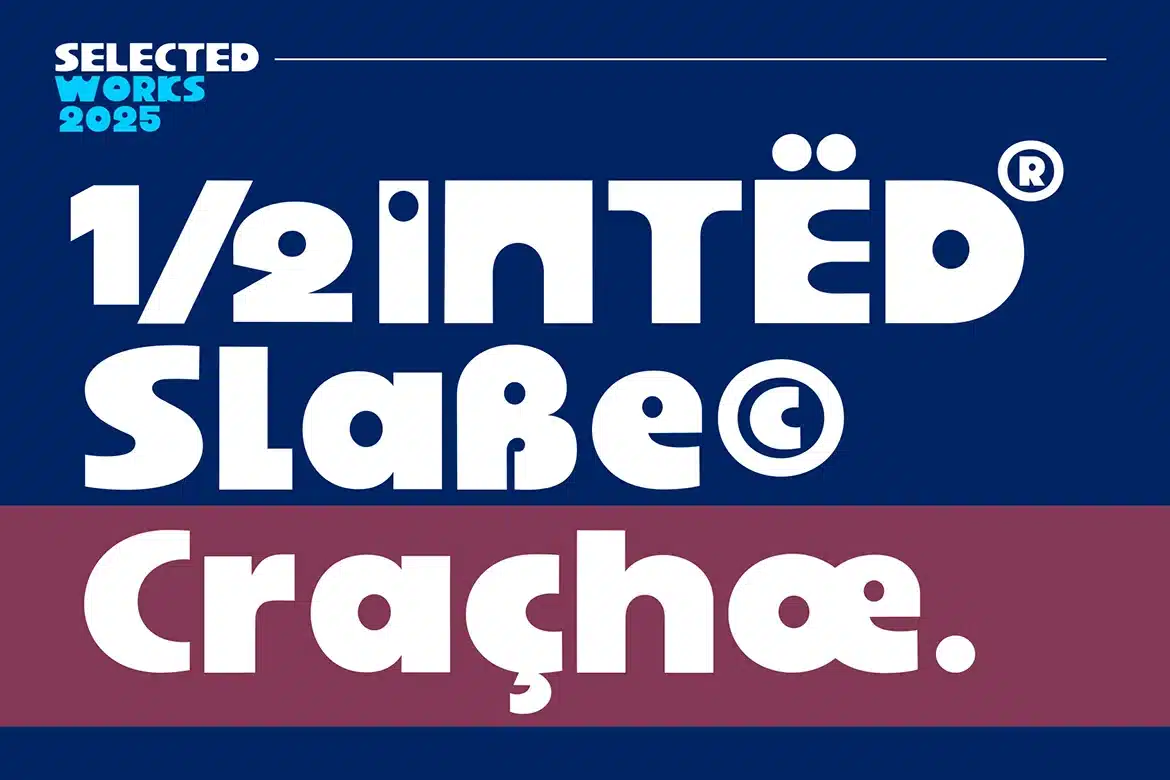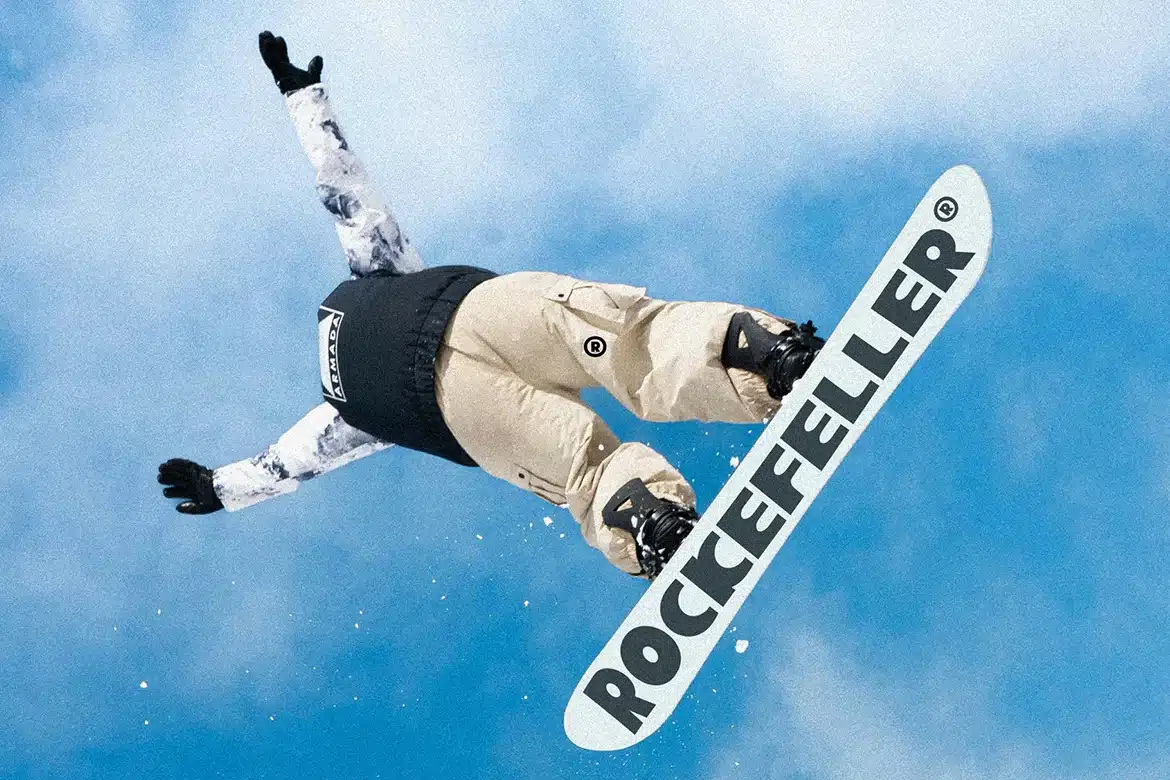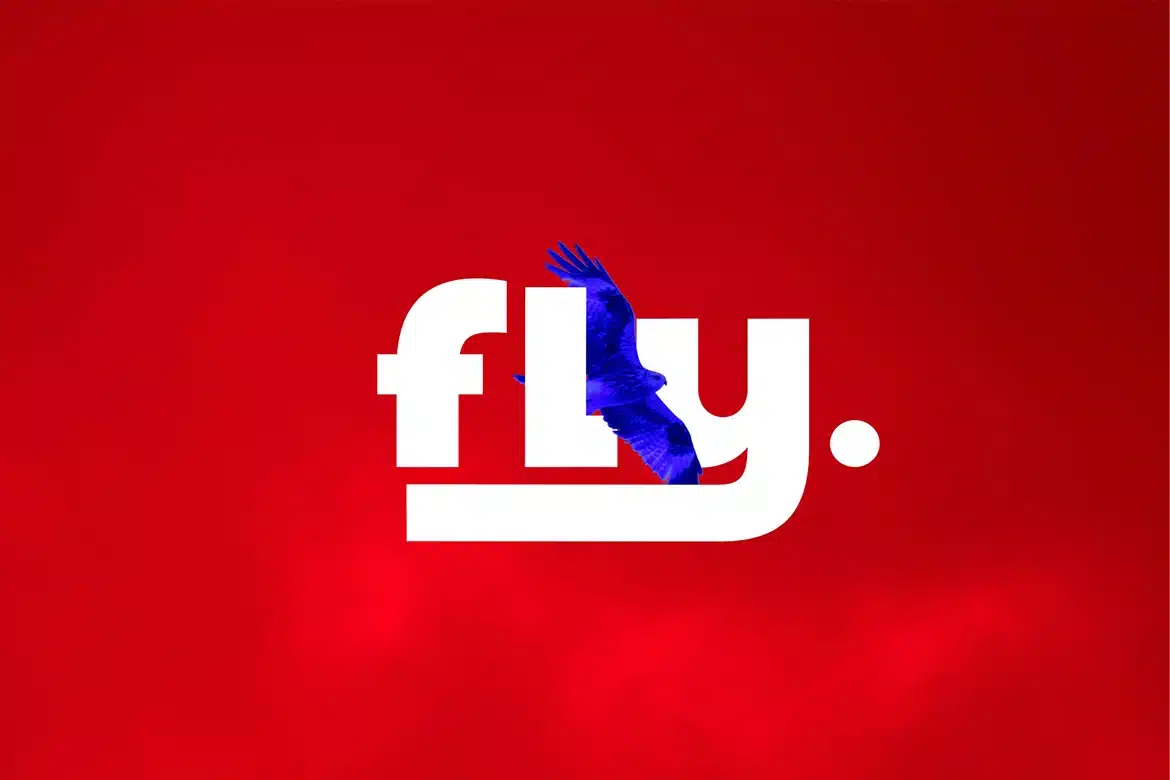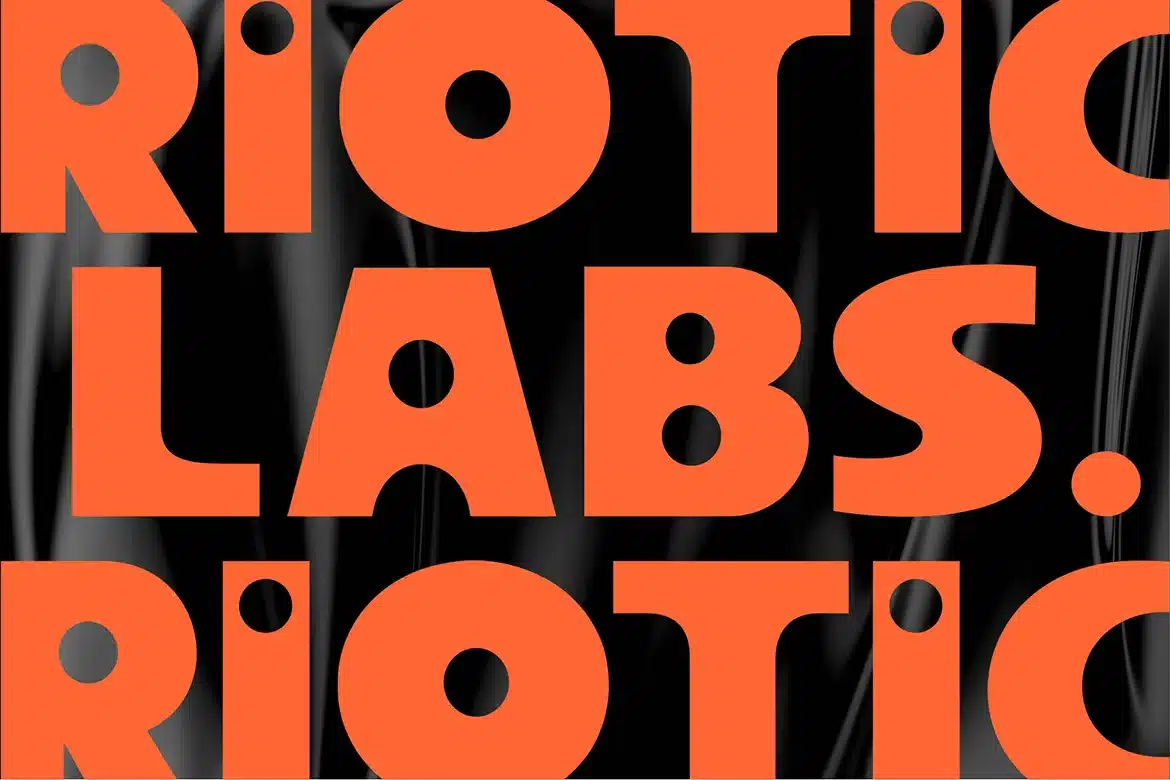
Blings Font
Blings is a display sans serif font that is modern, elegant and so cool. This font looking elegant, classy, modern, stylish, up-to-date and easy to use.
Blings meant for branding, It's great for Logo, headlines and titles.
perfect for crafting, branding, invitation, stationery, wedding designs, social media posts, advertisements, product packaging, product designs, label, Posters, photography, special events, or anything.